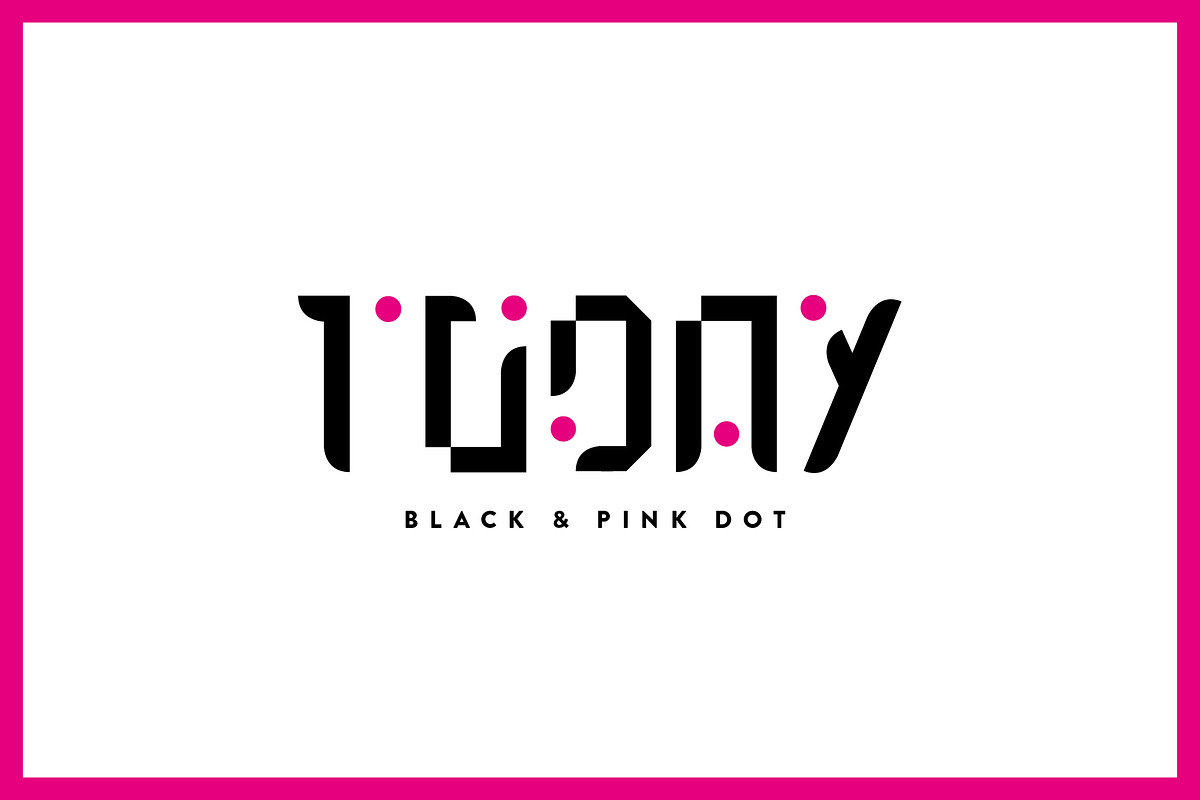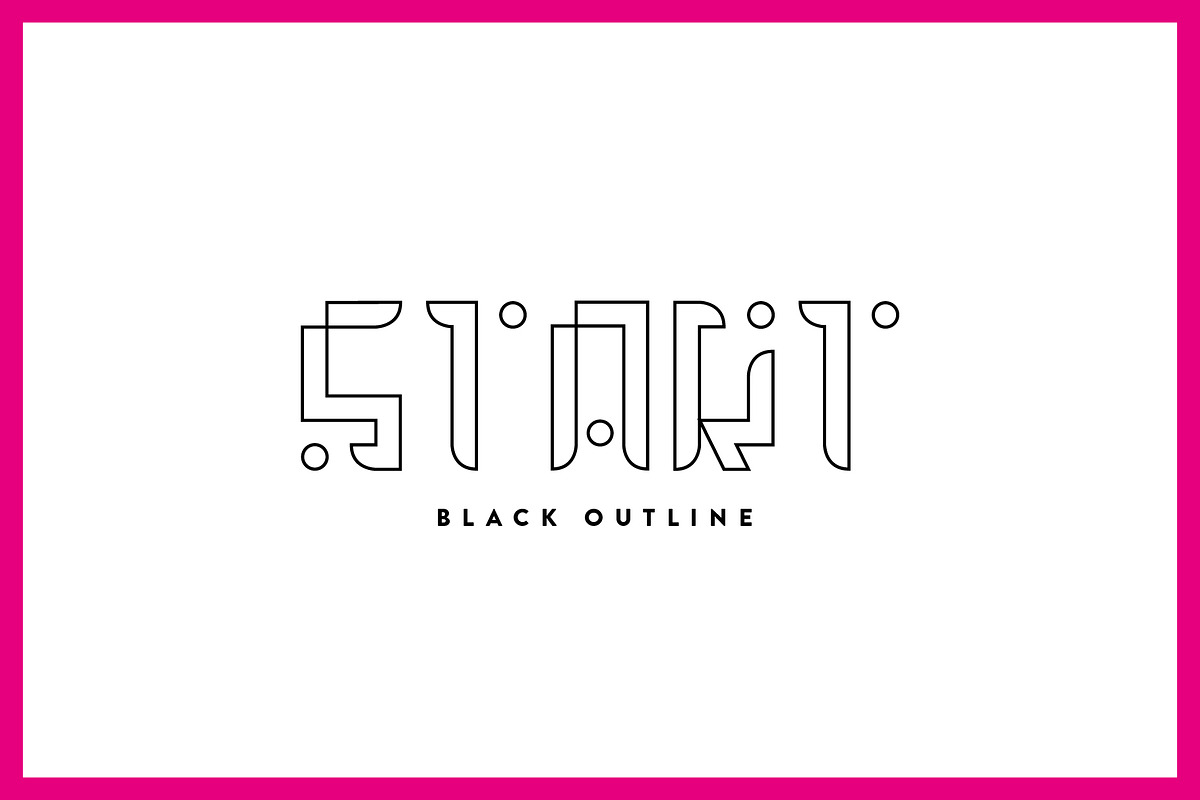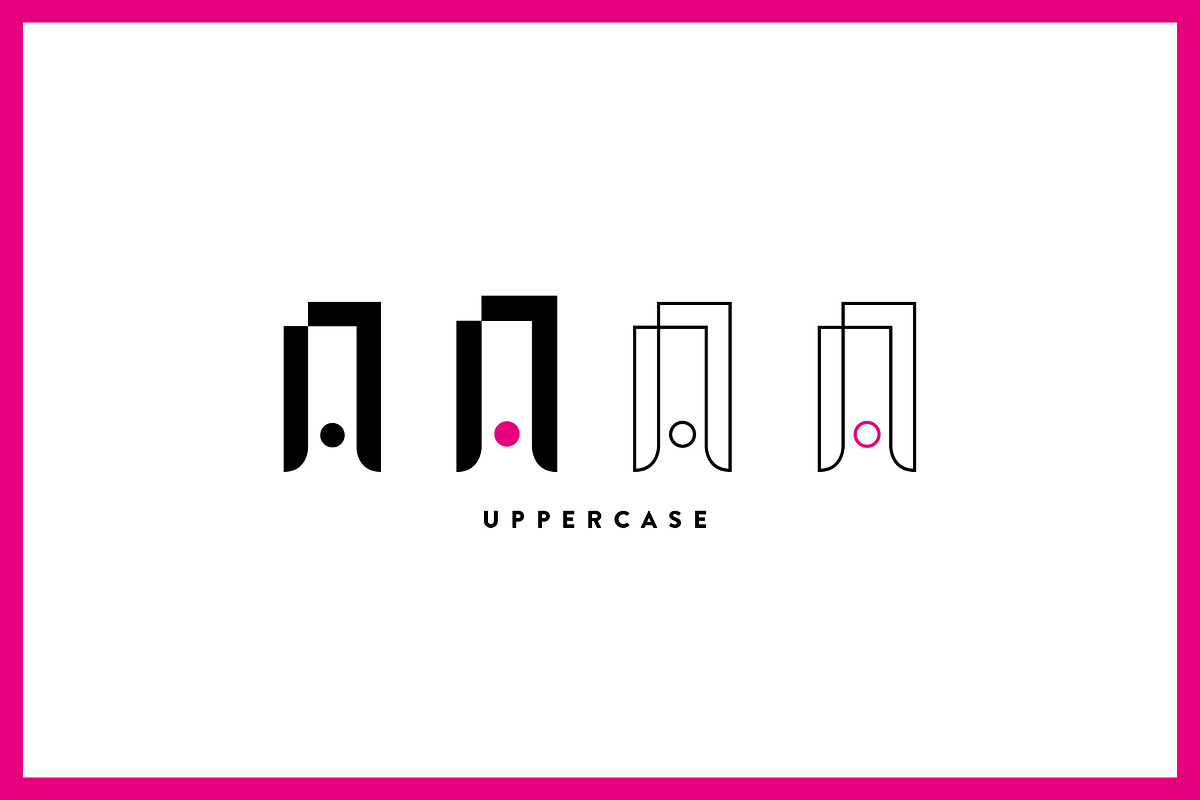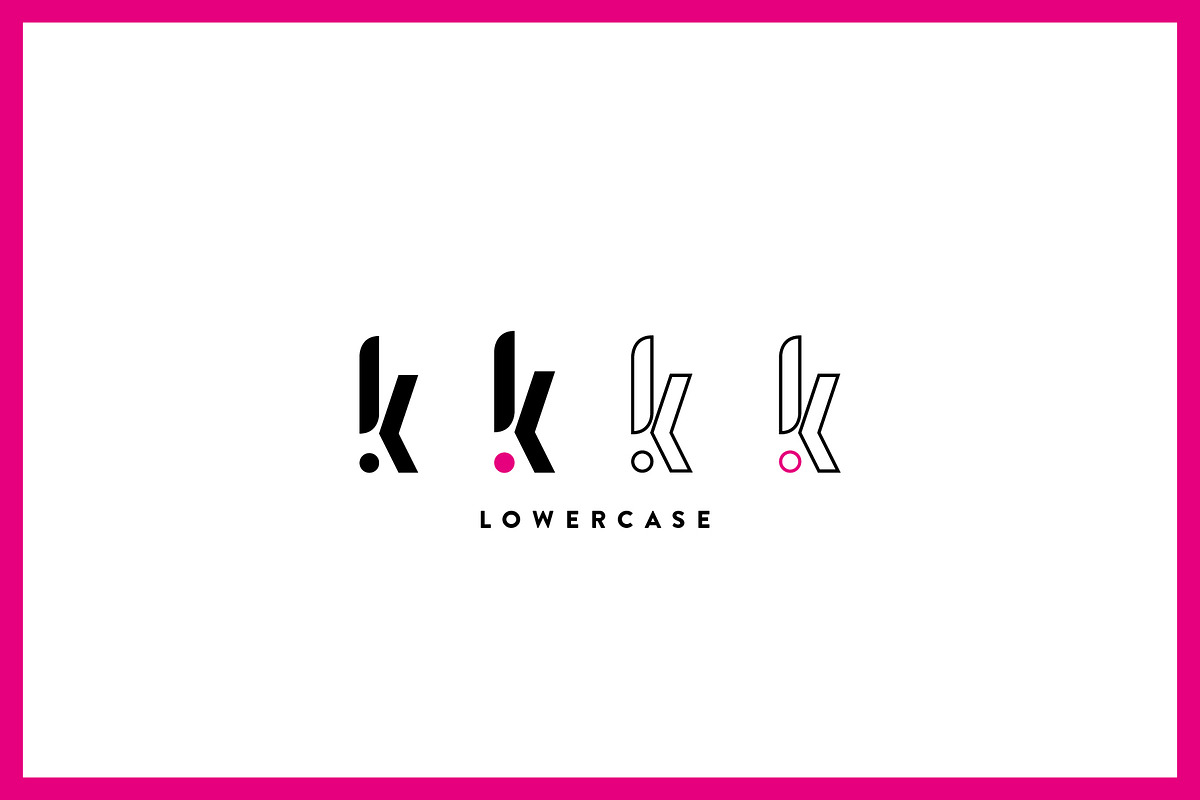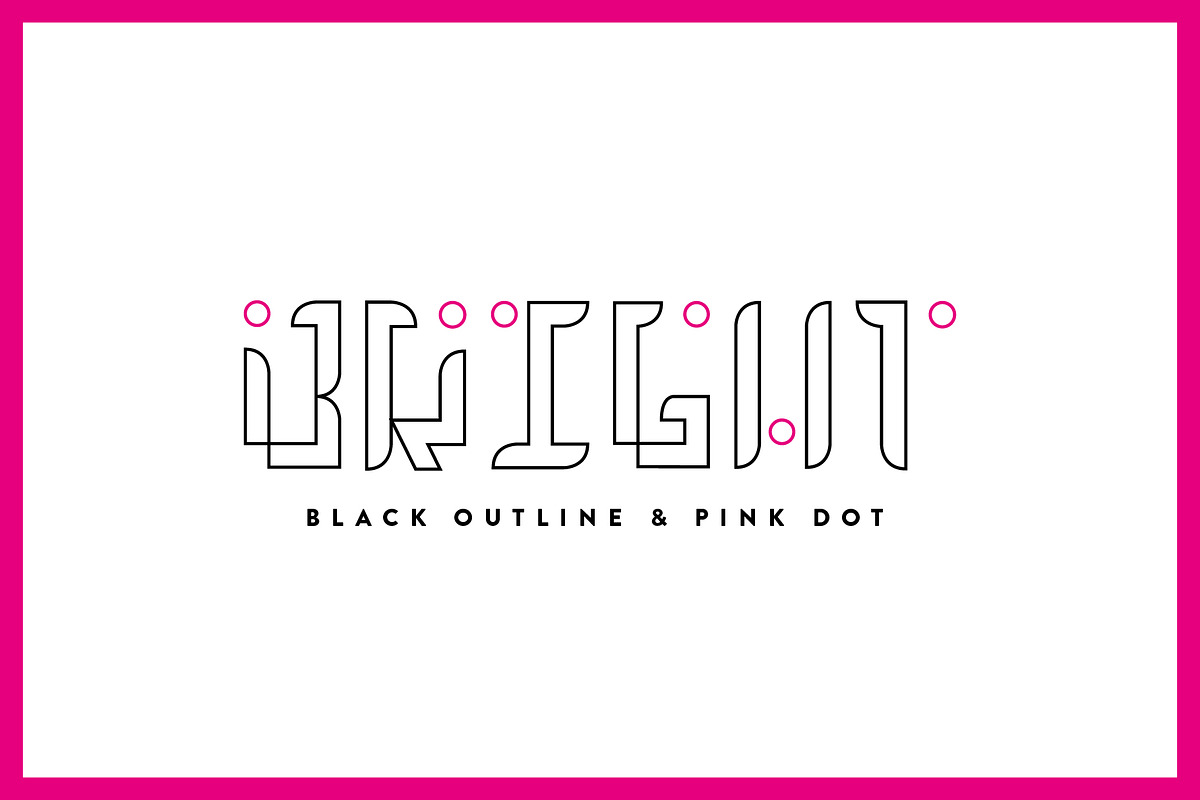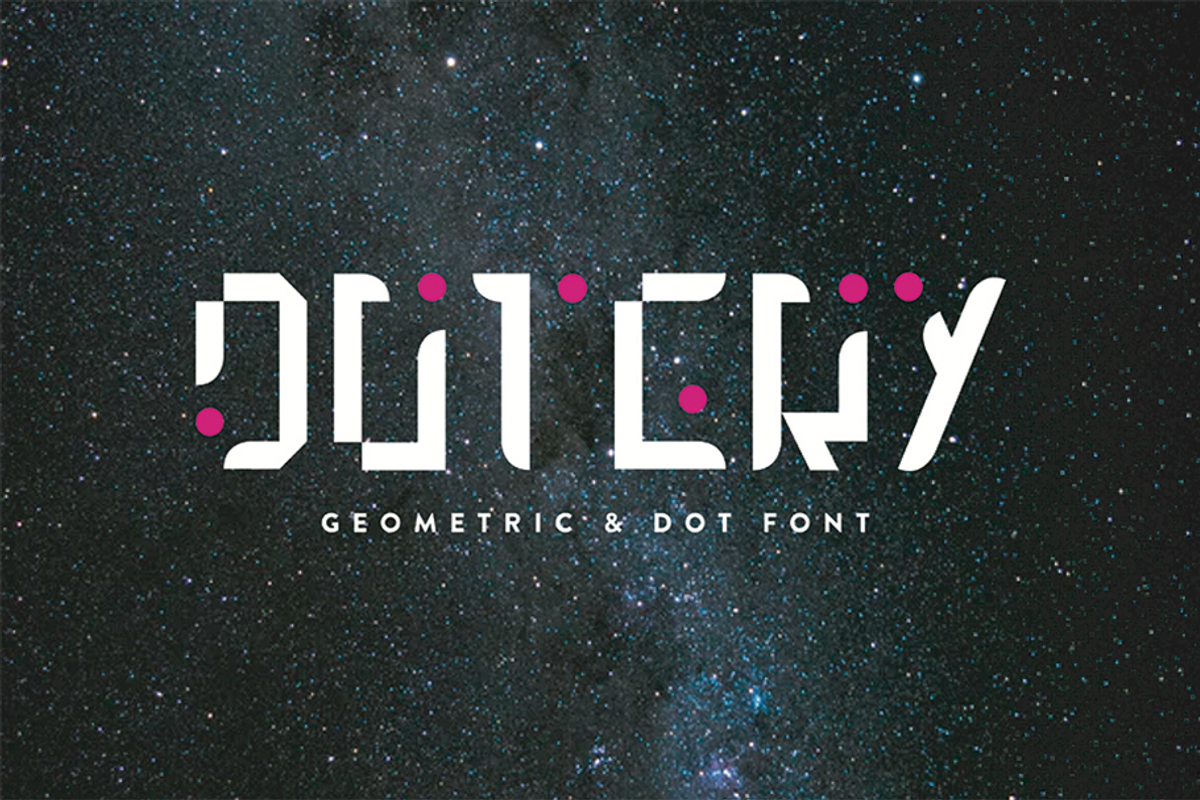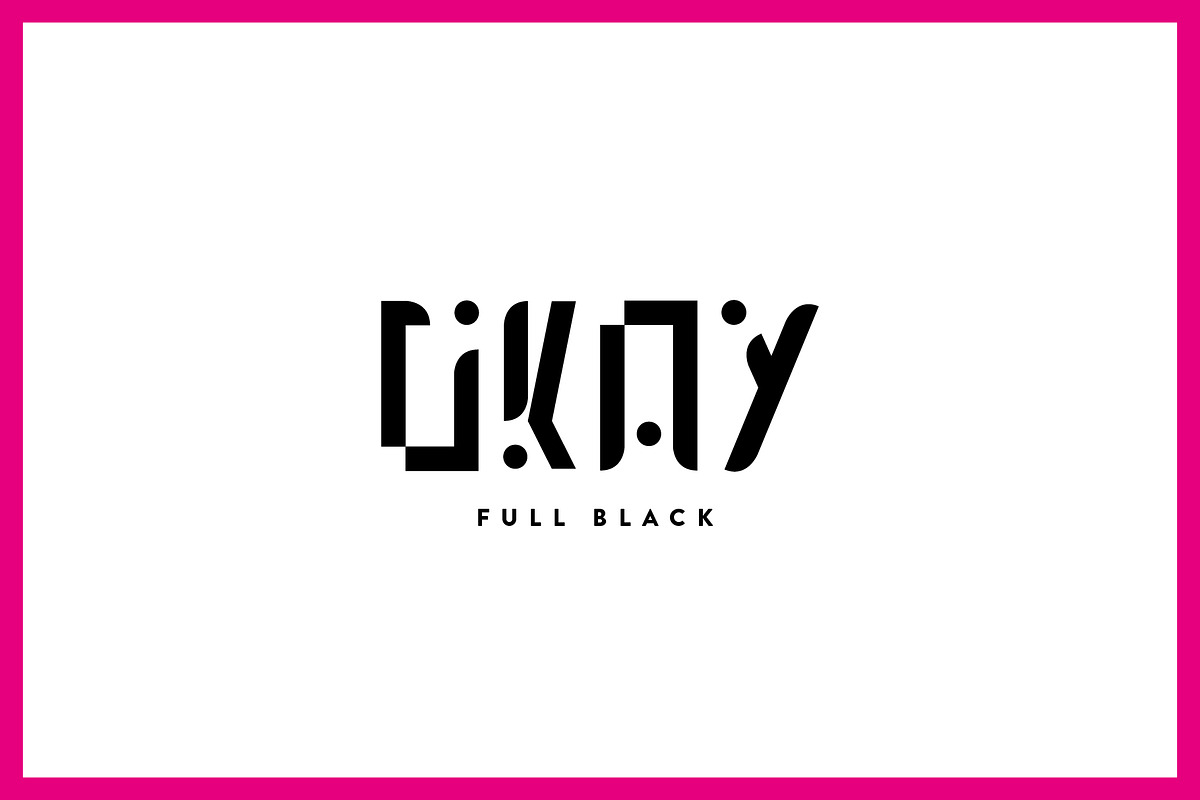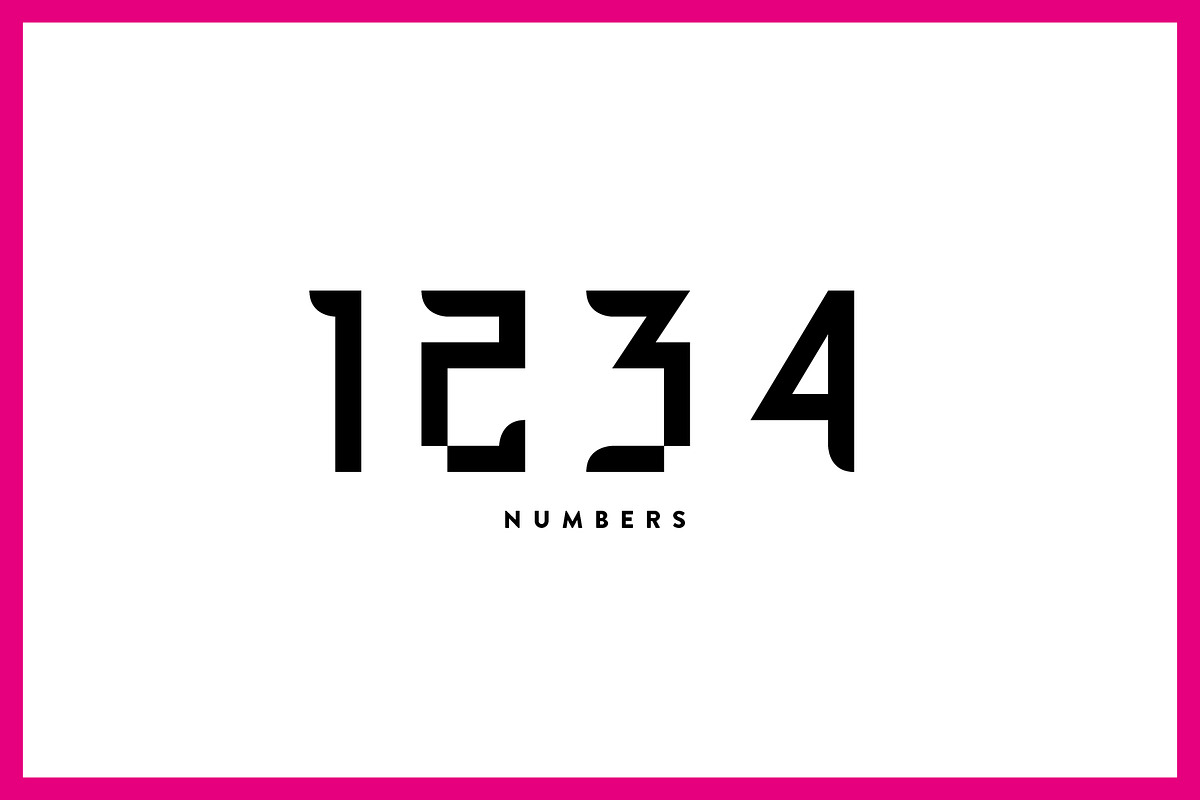
Dotery - Font Family
Dotery - Font family - Geometric & Dot type
Dotery - Font Family by Fiona Poupeau fits naturally into Branding, posters, packaging, typography.